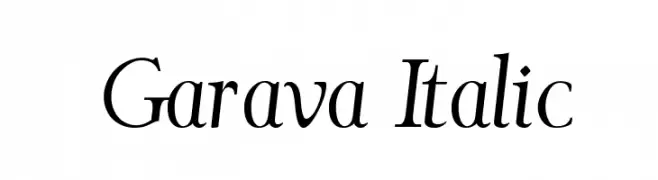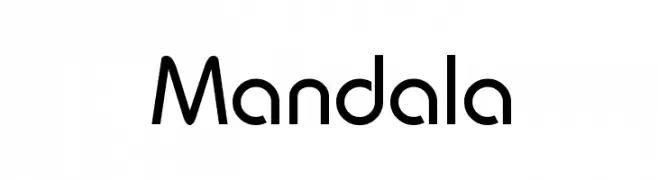
An elegant italic font with smooth curves and a sophisticated style.
A modern, geometric sans-serif font with smooth curves and balanced spacing.
A sleek, modern italic font with smooth curves and dynamic style.
An elegant serif italic font with smooth curves and high contrast.
A modern italic font with smooth curves and a dynamic, elegant style.
A playful, casual handwritten font with smooth, flowing curves.
A playful, handwritten font with smooth, flowing lines and a casual style.
A playful, handwritten font with smooth, flowing lines and a whimsical style.
A casual, friendly handwritten font with smooth, flowing strokes.